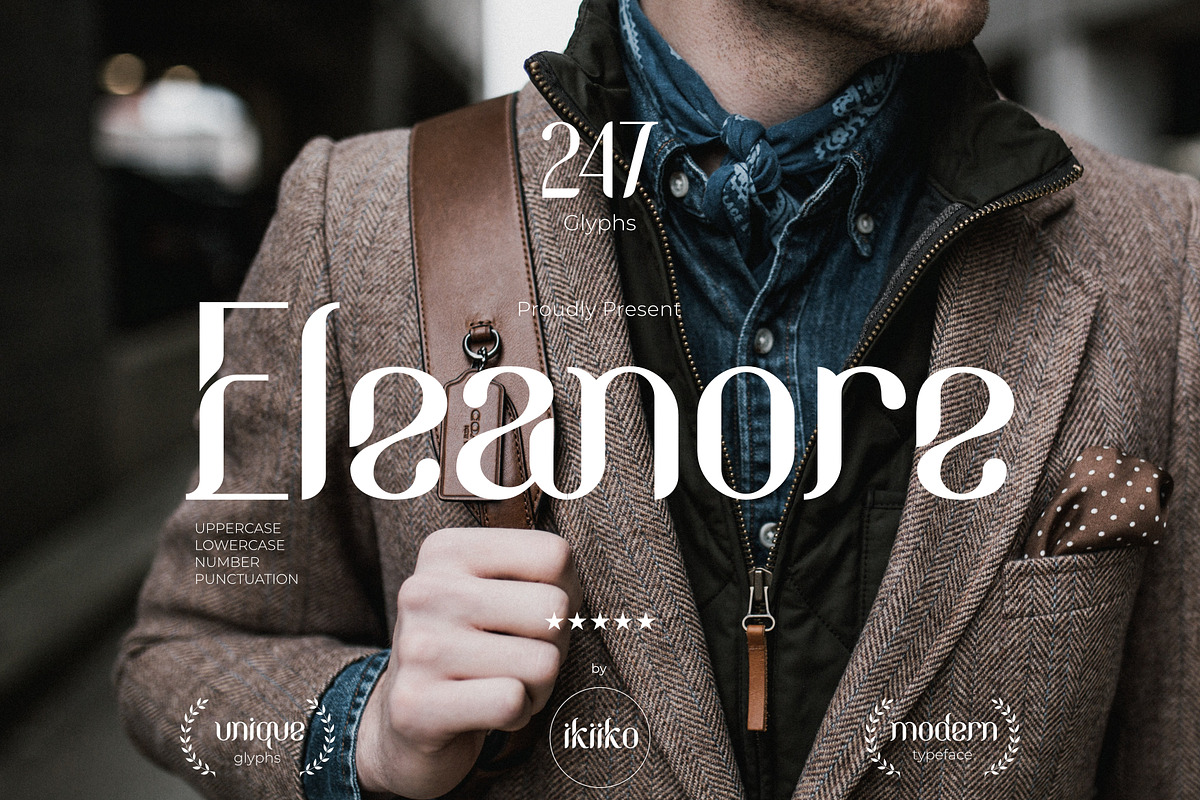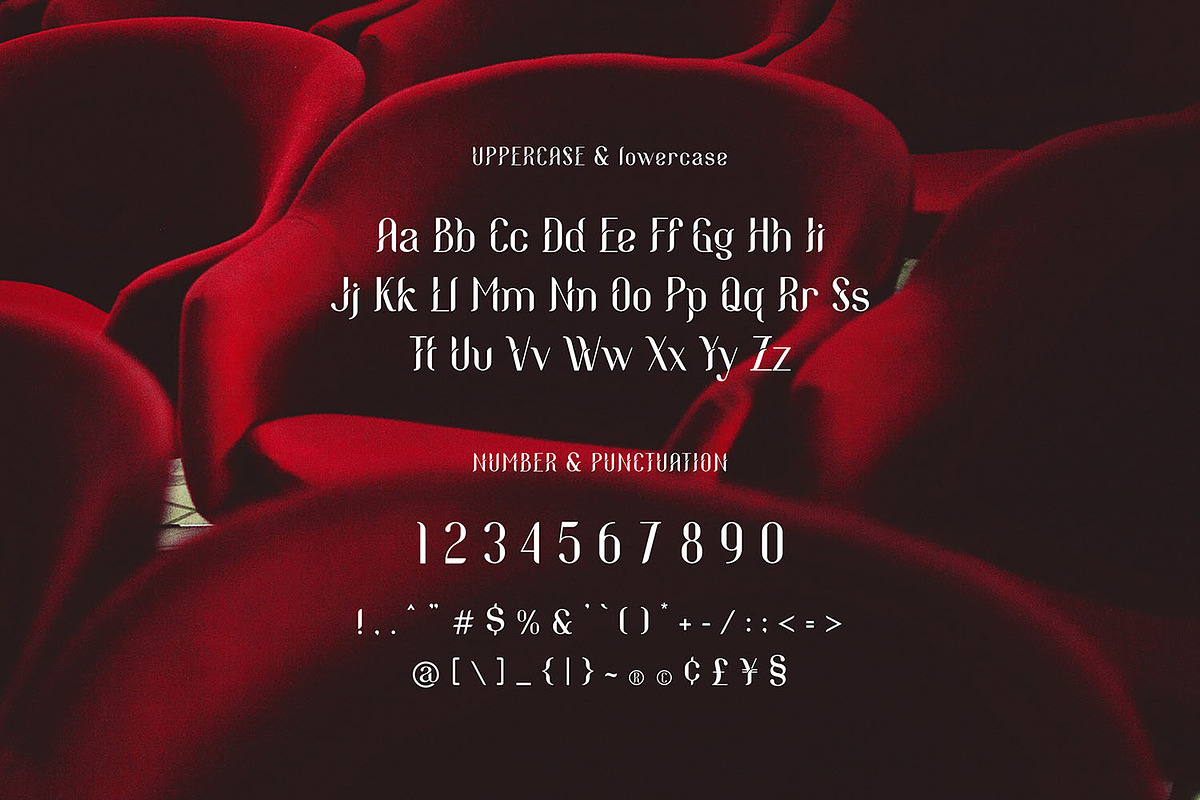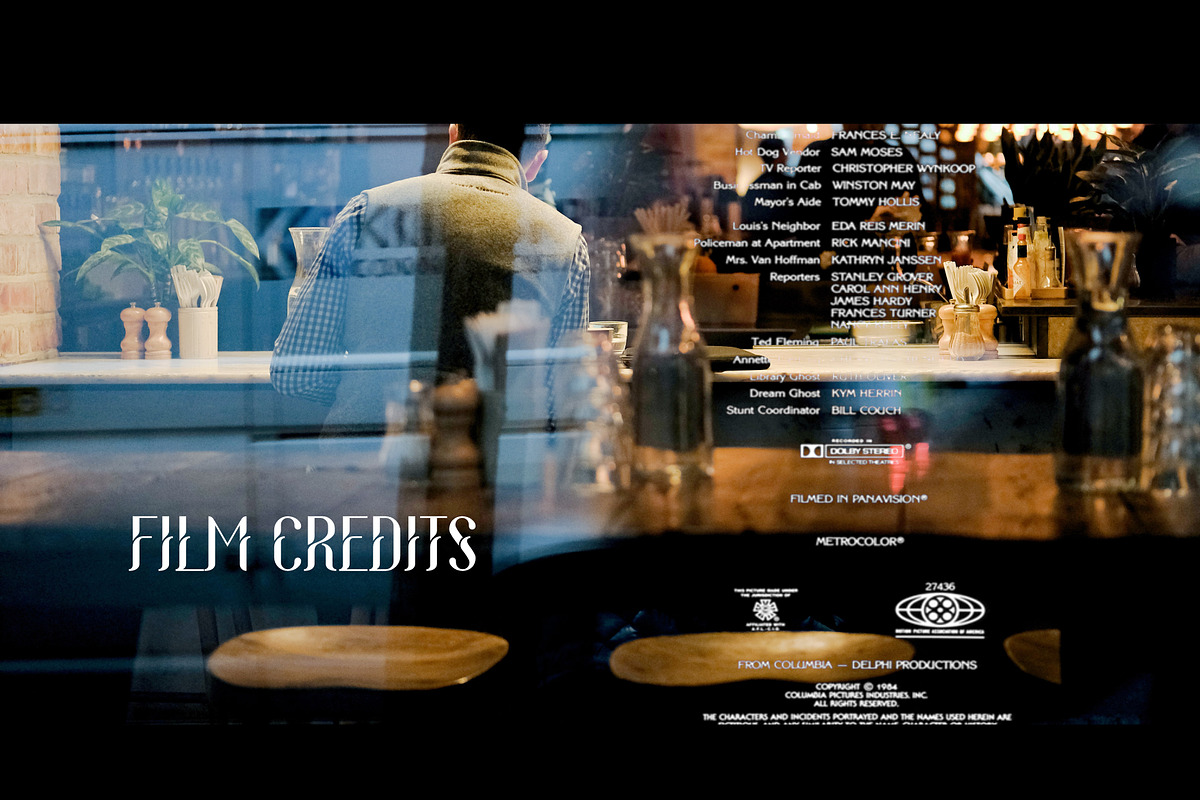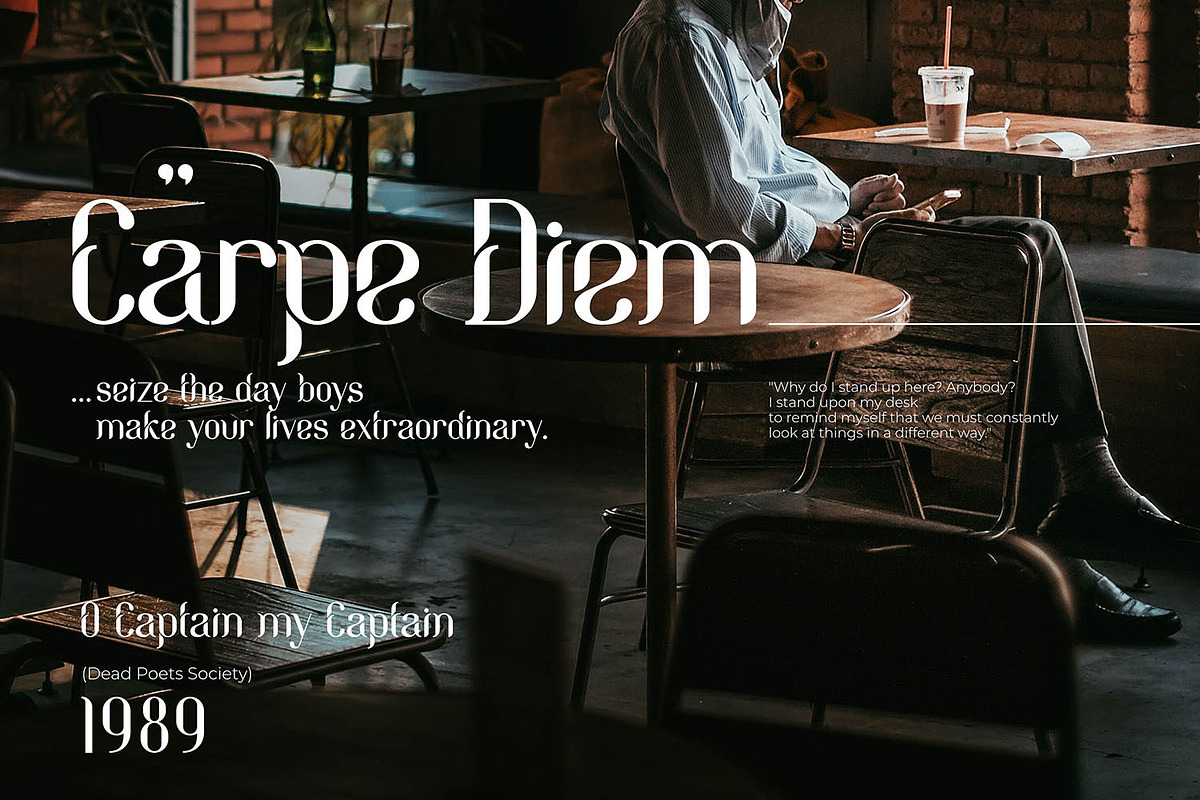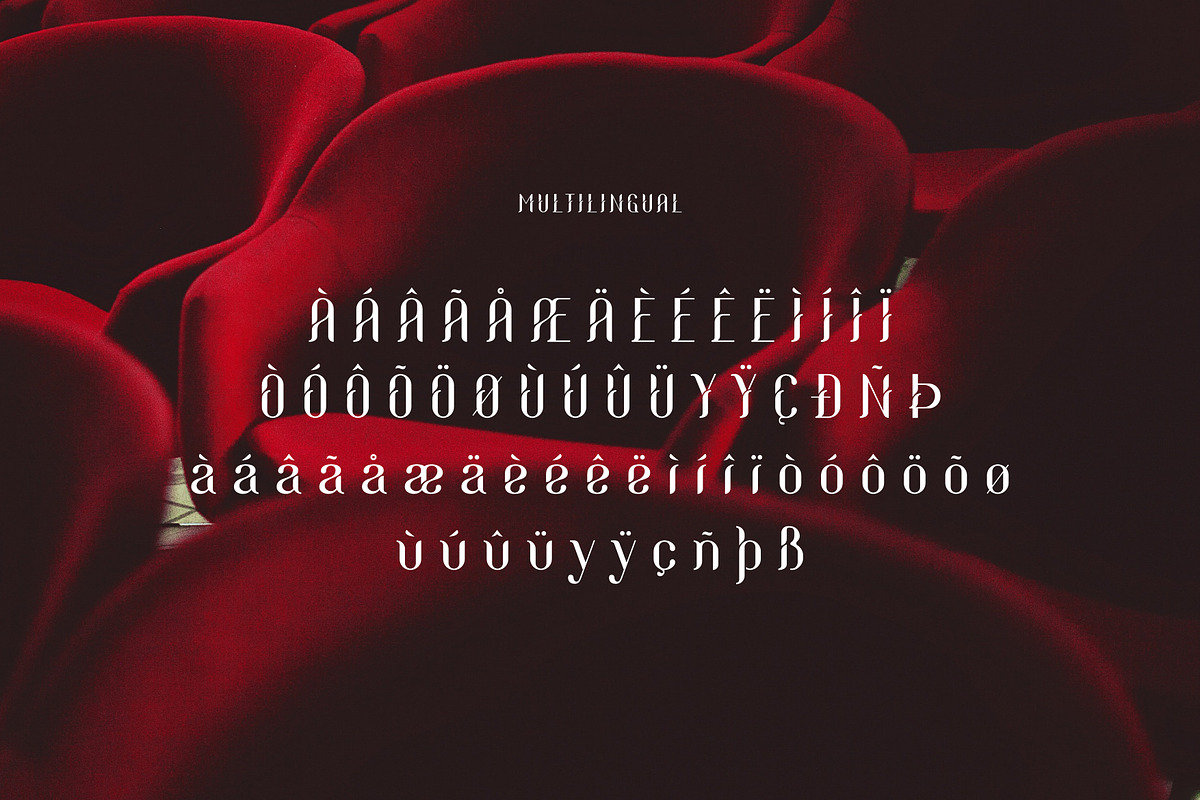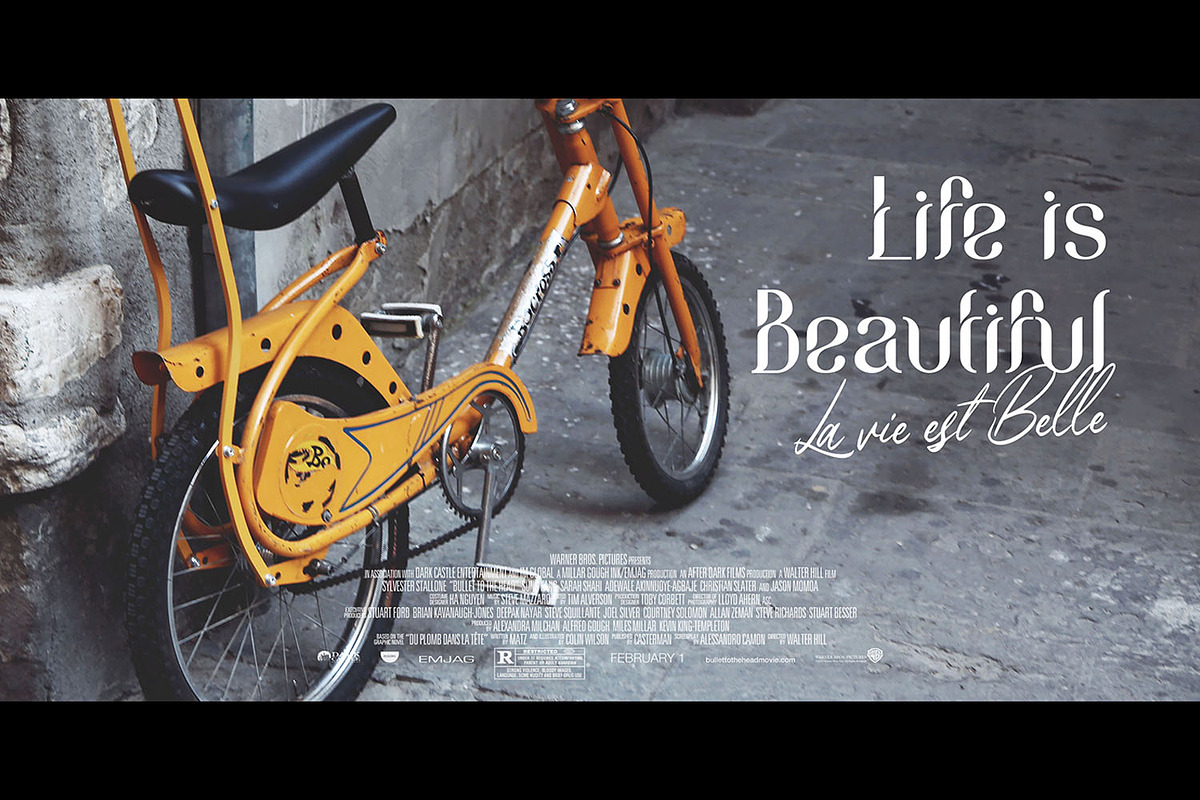
Eleanore Typeface
Proudly present Eleanore Typeface, created by ikiiko.
A decorative typeface that has own unique style & modern look. This typeface is perfect for an elegant & luxury logo, book or movie title design, fashion brand, magazine, clothes, lettering, quotes, and so much more.